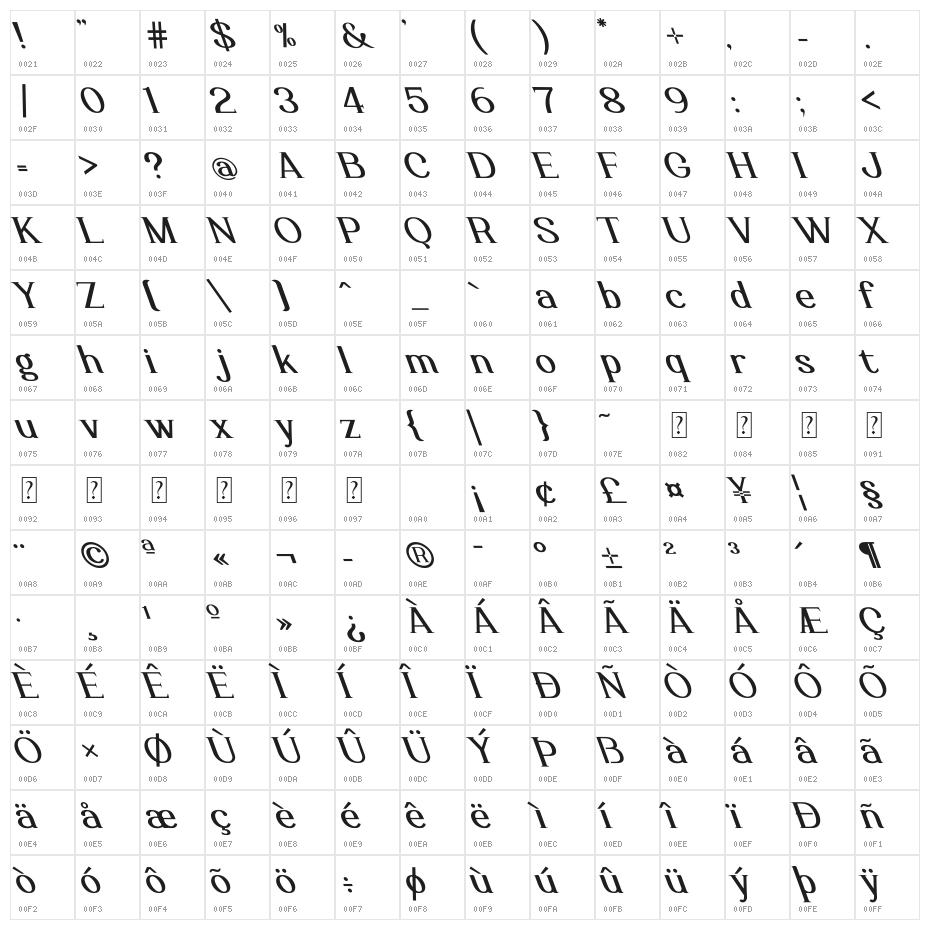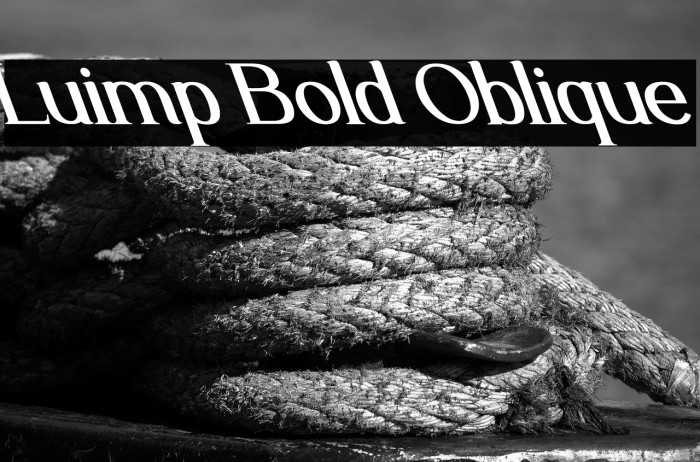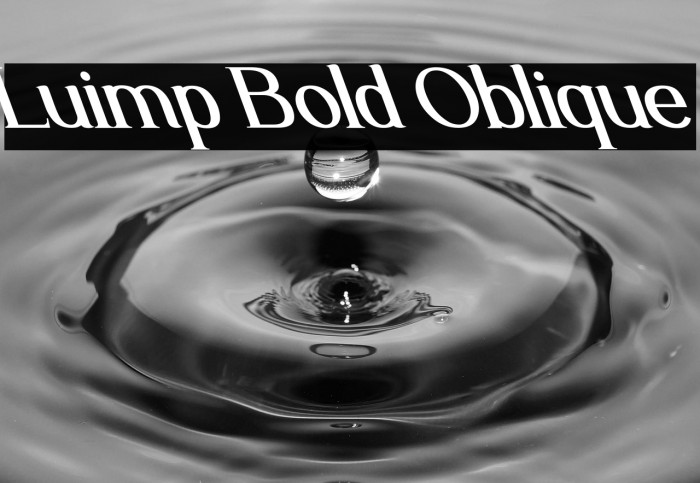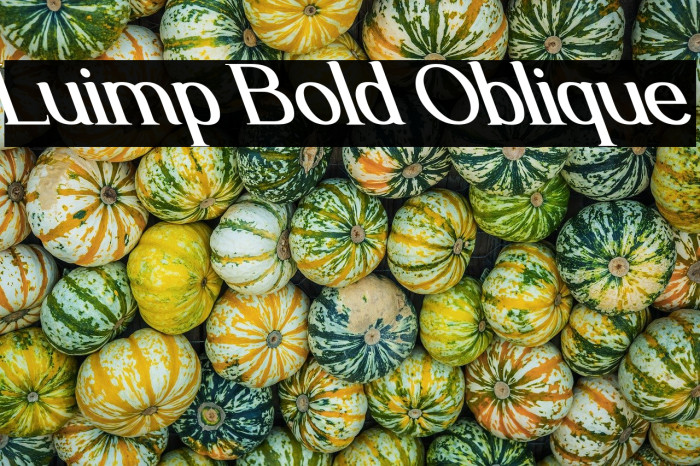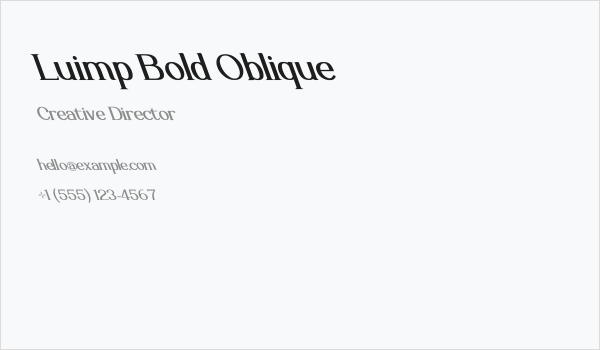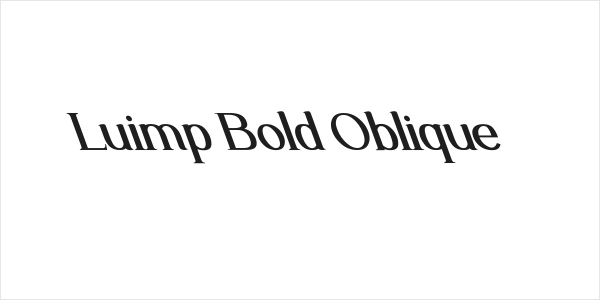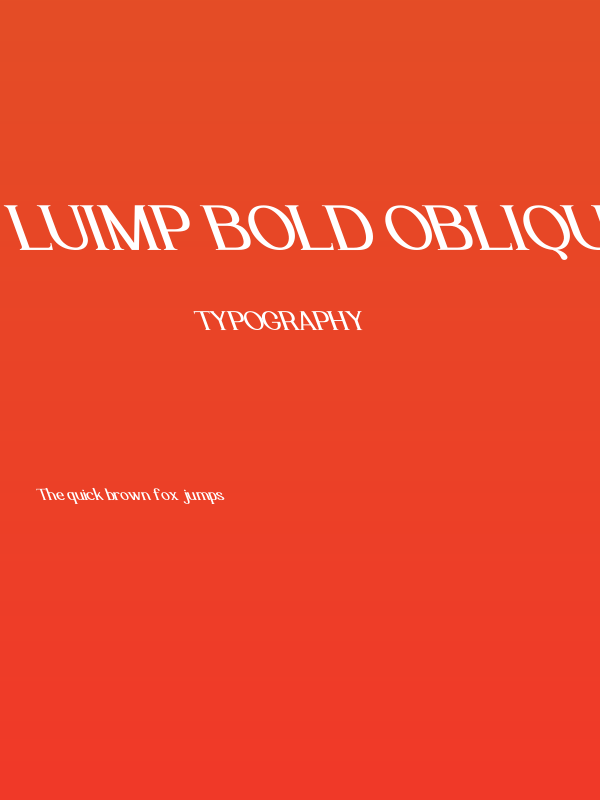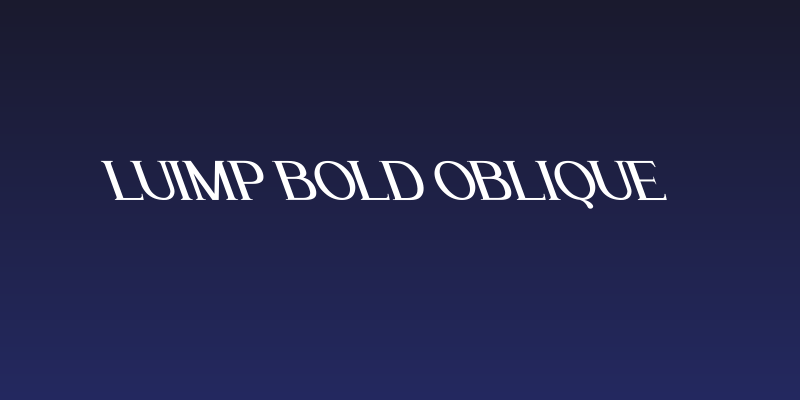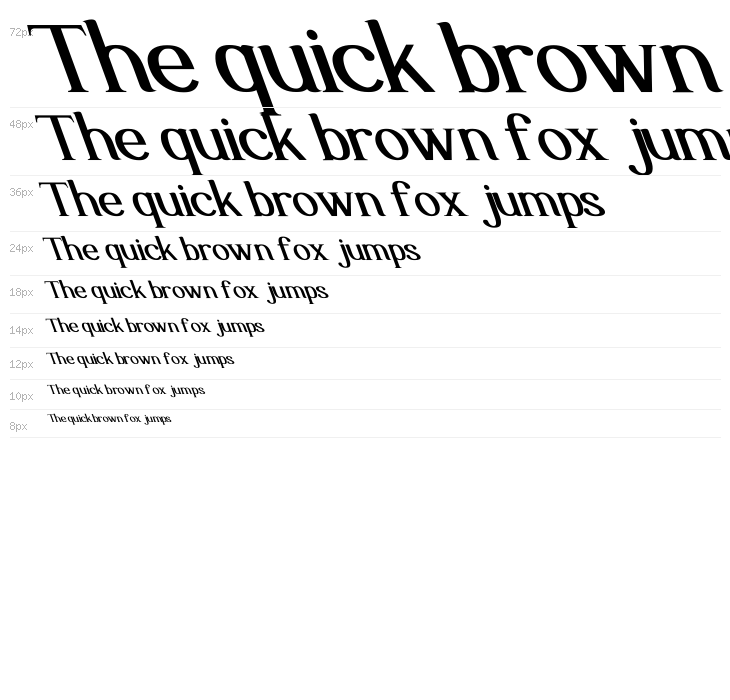
Luimp Bold Oblique Font
Luimp Bold Oblique Description
This font exhibits a bold and oblique style, characterized by its strong and dynamic presence. The uppercase letters are sharply defined with a slight slant, giving them a sense of movement and urgency. The lowercase letters maintain a consistent style, with rounded edges that contrast with the angular nature of the uppercase. Numbers are clear and legible, following the same oblique style, which enhances their readability. Special characters are distinct and well-formed, ensuring versatility in various design contexts. The overall design is modern and assertive, making it suitable for impactful headlines and branding.
| Proposed Projects | Ideal for branding, advertising, and editorial design where a strong and modern presence is needed. |